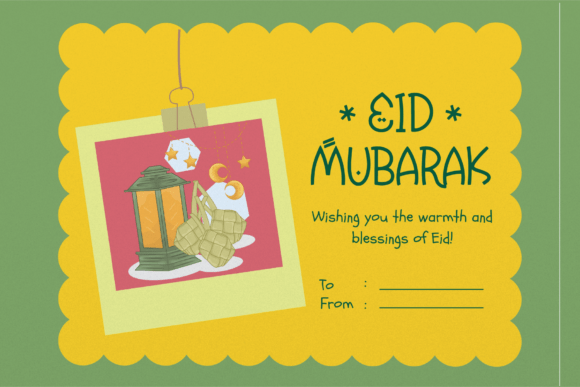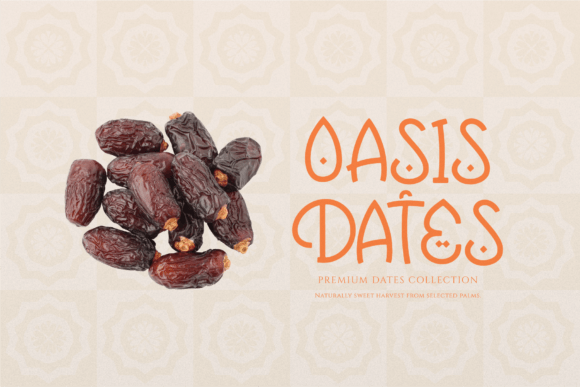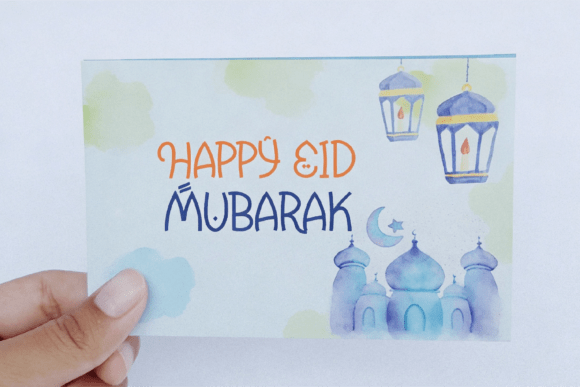
Discover the Rhythm of Raqasy Font
Imagine yourself lost in the vibrant streets of Marrakech, surrounded by the warm glow of lanterns and the soothing sound of Arabic calligraphy. The intricate patterns and flowing script transport you to a world of beauty and elegance. This is the essence of Raqasy Font, a stunning hand-drawn Arabic-style typeface that brings the magic of Middle Eastern culture to your creative projects.
For designers, Raqasy Font is a valuable resource that can elevate any project with its unique blend of traditional and modern elements. Whether you’re working on a branding project, designing a menu, or creating a cultural poster, Raqasy Font’s expressive ligatures and decorative accents will give your work a one-of-a-kind feel. With its high-quality design and transparent background, this font is a must-have for any creative project.
- The Raqasy Font is a unique and versatile design element, suitable for a wide range of creative projects, from logos to typography.
Honest Review: Raqasy Font
I recently came across the Raqasy Font, a design resource that I wanted to share with you all. The first thing that caught my attention was its high quality and unique style. The font is perfect for those looking for a creative project, and it’s available for free download, which is a big plus.
Here are some things that I liked about the Raqasy Font:
- ✨ Unique and creative design that sets it apart from other fonts
- ✨ High-quality font that looks great on both light and dark backgrounds
- ✨ Transparent background, which makes it easy to use in any design project
However, there are a few limitations to the Raqasy Font:
- ⚠️ Limited character set, which may not be ideal for projects that require a wide range of characters
Overall, I think the Raqasy Font is a great design resource that can add a unique touch to any creative project. While it has some limitations, it’s a great option for designers who are looking for a high-quality font that’s available for free download.
The Raqasy Font is perfect for creating logos, brochures, business cards, and other design materials. It’s also great for creating social media graphics, presentations, and website content.
Tips for Getting the Most Out of Raqasy Font
Use the Raqasy Font in combination with a transparent background to create a clean and modern design. Experiment with different font sizes and colors to add visual interest to your design. You can also use the font in combination with other design elements to create a unique and creative design.
Alternatives to Raqasy Font
Great Vibes is a high-quality, elegant script font perfect for creative projects requiring a touch of sophistication. It’s ideal for designing invitations, logos, or titles that need a vintage flair. Unlike Raqasy Font, Great Vibes has a more refined and delicate feel, making it suitable for a wide range of design applications.
Alex Brush is a beautiful, handwritten font that can add a personal touch to any design. It’s great for creating eye-catching titles, quotes, or headlines for your design projects. While Raqasy Font is more modern, Alex Brush has a softer, more feminine feel, making it perfect for feminine-themed designs or projects that require a touch of warmth.
Yes, the Raqasy Font has a transparent background, making it perfect for use on projects with complex backgrounds or layered designs. The font’s transparent background allows you to easily combine it with other design elements without any issues.
Q: Is the Raqasy Font suitable for high-quality design projects?
Yes, the Raqasy Font is designed to be a high-quality design resource. It has a clean and elegant design that makes it perfect for use in a variety of creative projects, from branding and logos to typography and editorial design.